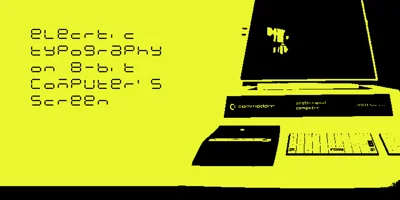
Flat10 Segments Font
The Flat10 Segments Font excels in various design applications including digital display branding, electronic interface marketing, retro gaming communications, LCD screen simulation materials, digital clock design identities, electronic scoreboard signage, tech nostalgia promotions, digital dashboard layouts, electronic meter displays, and technological display projects that demand segmented precision and digital sophistication.
What makes the Flat10 Segments Font exciting is its authentic embodiment of digital display technology and segmented character construction through letterforms that capture the essence of classic electronic displays and the nostalgic appeal of early digital interfaces. This typeface demonstrates exceptional technical character through carefully engineered segments that suggest the precise construction of LCD displays, the systematic logic of digital readouts, and the technological heritage that makes segmented displays so recognizably iconic and functionally beautiful. The font's segmented personality makes it perfect for technology companies and retro gaming brands seeking to communicate digital authenticity, electronic precision, and the kind of technological nostalgia that creates memorable digital experiences through typography that literally displays with segmented clarity.
The Flat10 Segments Font family typically includes technical weight variations that enhance the digital aesthetic, featuring segmented styling options and extended character sets optimized for electronic communications and display applications. These family options often include display-inspired alternates, digital symbols, and electronic decorative elements that provide designers with comprehensive tools for creating authentically digital typography that celebrates electronic display culture while maintaining contemporary design appeal and technological credibility.
Technology professionals and electronic display manufacturers consistently choose Flat10 Segments Font for projects requiring typography that communicates digital authenticity and segmented sophistication. This typeface delivers exceptional performance in tech marketing, electronic branding, and digital communications where establishing technological credibility and creating nostalgic digital atmosphere is essential for tech enthusiast engagement. The font's segmented character makes it particularly effective for gaming and display applications. Download Flat10 Segments Font today to access this technologically precise typeface that transforms digital communications with its segmented elegance and electronic sophistication, creating compelling technological experiences that honor the magnificent heritage of digital display technology while celebrating the systematic precision that defines authentic electronic interface design and segmented display excellence.